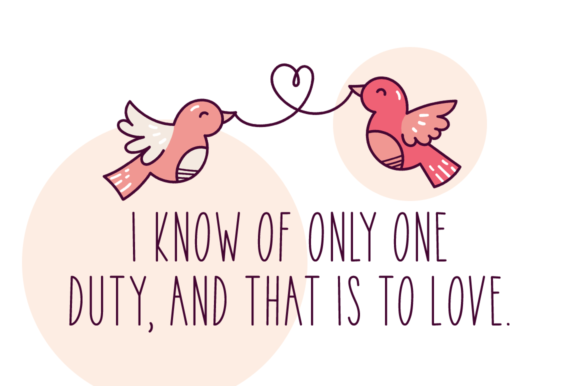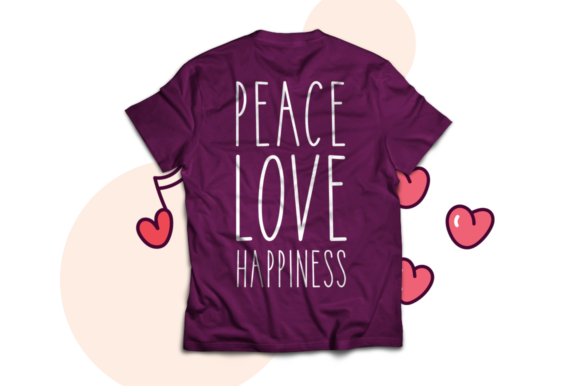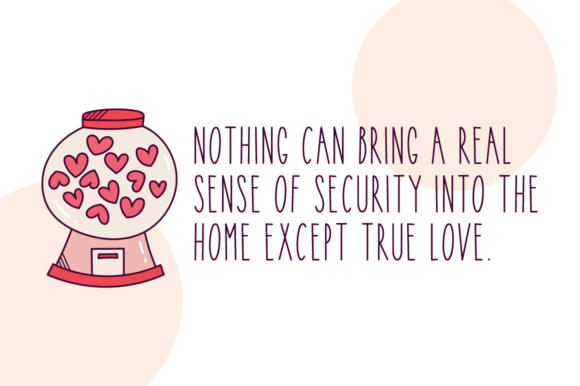
Introduction to See You Again Font
Have you ever been stuck on a design project, staring blankly at a blank canvas, trying to find the perfect font to bring your creative vision to life? It’s a feeling many designers know all too well. But what if we told you that help is just around the corner? Enter the See You Again Font, a brand new and sleek display font designed to elevate your next design project to the next level.
This high-quality font is perfect for designers looking to add a touch of sophistication to their work. With its thin lettered design, the See You Again Font is ideal for a wide range of applications, from stationery and logos to website headers and photo frames. And the best part? It’s available for free download, making it an invaluable resource for designers of all levels.
Whether you’re working on a personal project or a high-stakes client brief, the See You Again Font is sure to be a valuable addition to your design arsenal. In this article, we’ll take a closer look at what makes this font so special, and how you can use it to take your designs to new heights.
Key Features of See You Again Font
- Unique and emotive design, ideal for creative projects and tributes
- High-quality font with a transparent background, perfect for use on any design resource
- Designed to evoke a sense of nostalgia and longing, making it perfect for special occasions
Honest Review: See You Again Font
I recently stumbled upon the See You Again Font, and I must say it’s a solid addition to any design resource collection. The font’s high-quality design and creative feel make it perfect for various projects.
The See You Again Font is a great choice for designers looking to add a touch of elegance and sophistication to their work. One of the standout features is its versatility, which allows it to be used in a wide range of creative projects.
- High-quality design and crisp typography
- Translucent background option for seamless background usage
- Professional and elegant feel, suitable for corporate and creative projects
- No bold or italic variations available, which may limit its use in certain contexts
- Not suitable for projects requiring extreme customization
Overall, I’m impressed with the See You Again Font, and I’d highly recommend it to designers looking for a reliable and high-quality design resource. Its free download option makes it a must-have for any design project.
To get the most out of the See You Again Font, try pairing it with a bold and modern background to create a striking contrast. You can also experiment with different font sizes and colors to add visual interest to your design.
The See You Again Font is a versatile design resource that can be used in a variety of creative projects, including wedding invitations, social media graphics, and business presentations. Its high-quality design and transparent background make it a great choice for designers of all levels.